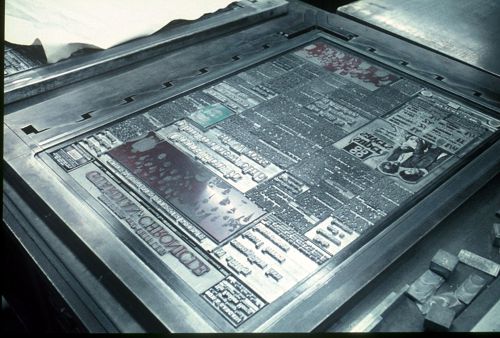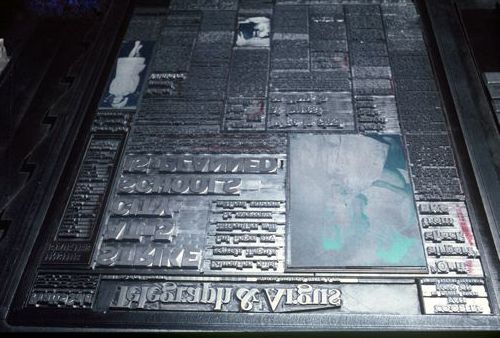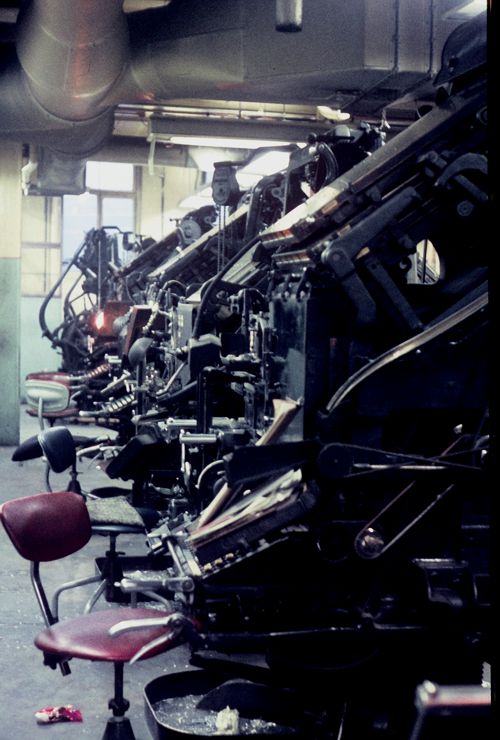
Bradford Telegraph & Argus, 1970
Bradford Telegraph & Argus front page, January 7, 1970
Bradford Telegraph & Argus front page, January 7, 1970.
Says Bruce: “Note space at the side of the masthead; this was where the edition seal was printed in red (the only colour in the paper in those days); latterly the “fudge” – or late news secor, on the back page – was also printed in red.
Main heading in 72pt Franklin Gothic; other faces used were Century Modern and bold, with a sprinkling of various Tempo faces, Franklin Gothic Extra Condensed, and various oddments.
By this time nearly all the headings were Ludlow-set, whereas earlier a lot of Linotype faces had been used. I worked on the Ludlow section at that time and it was very busy!
Some Linotypes and Intertypes at Bradford & District Newspapers on January 7 1970: Not an easy place to photograph, being very cramped
Some Linotypes and Intertypes at Bradford & District Newspapers on January 7 1970: Not an easy place to photograph, being very cramped.
Front page of the Bingley & Shipley Guardian-Chronicle photographed on the stone at Bradford on January 7 1970 (for publication on the following day). Headings mostly in Ludlow Century Modern Bold
Front page of the Bingley & Shipley Guardian-Chronicle photographed on the stone at Bradford on January 7 1970 (for publication on the following day). Headings mostly in Ludlow Century Modern Bold.